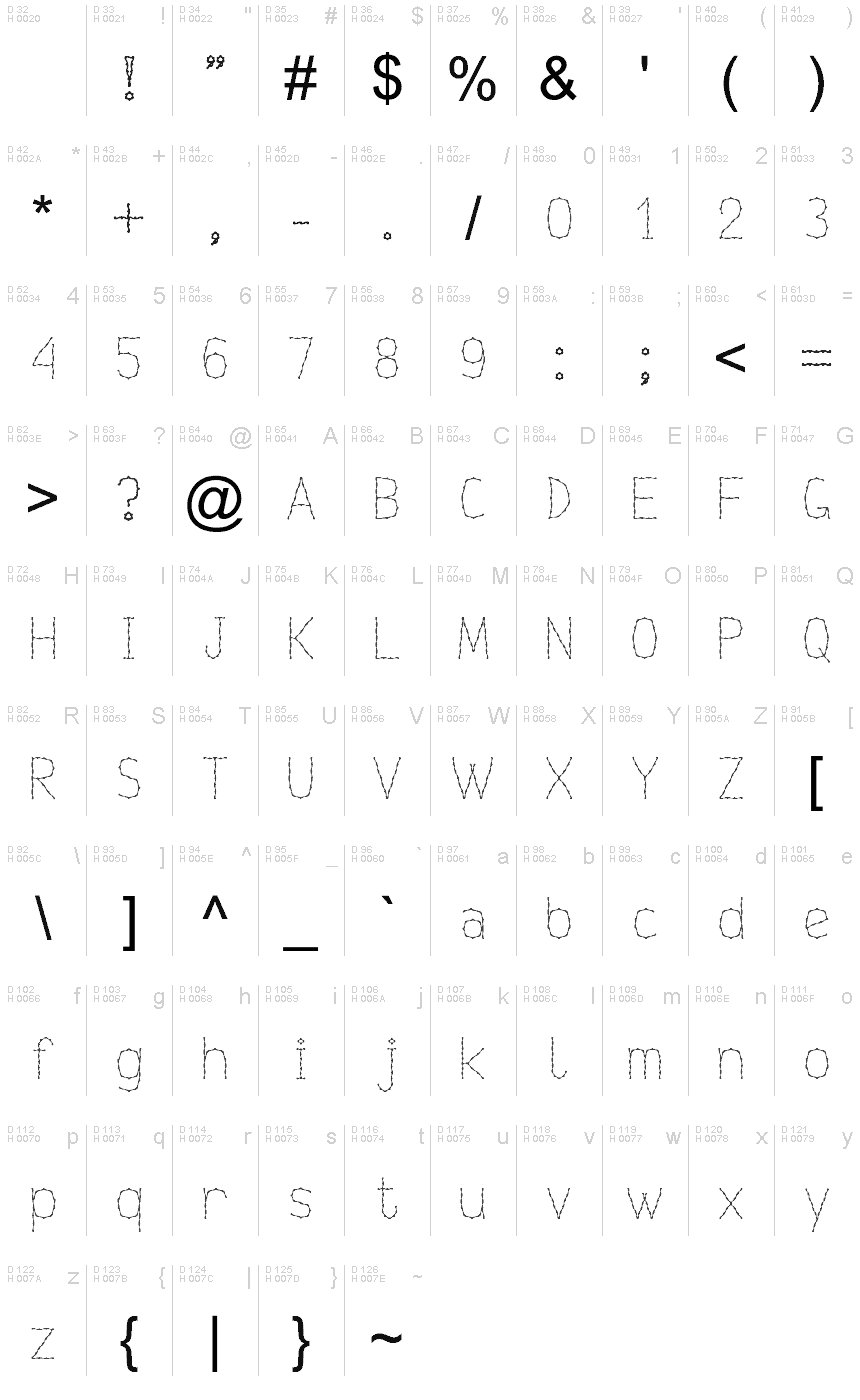
Nexarumpelstil
Nexarumpelstil is a captivating display font that exudes a delicate, airy charm. Its whimsical lines and fluid forms create a sense of movement and playfulness, making it an ideal choice for creative projects that seek to evoke a sense of wonder and imagination. The light weight of this decorative typeface lends itself well to headlines, titles, and other design elements that require a touch of elegance and refinement.
Nexarumpelstil's versatility shines through in its potential applications, from eco-friendly packaging and children's storybooks to fashion branding and modern wedding suites.